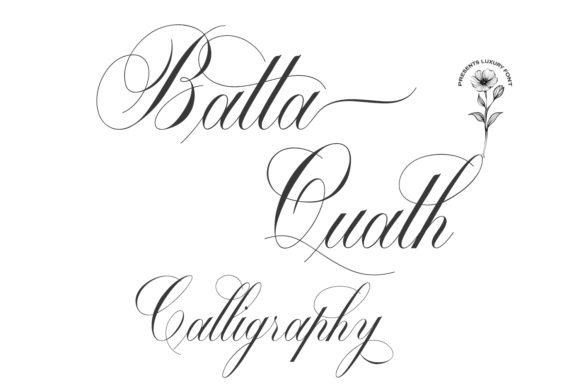
About Batta Quath Font
Batta Quath feels equally charming and elegant. This stunning script font is a stylish homage to classic calligraphy. It features a varying baseline, smooth lines, gorgeous glyphs and stunning alternates. Fall in love with its authentic feel and use it to create gorgeous wedding invitations, beautiful stationary art, eye-catching social media posts, and cute greeting cards.